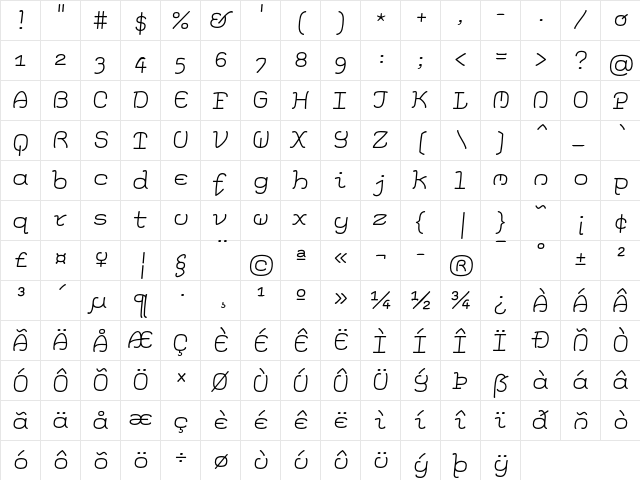
Elementis LT Std Light
Design Context for Elementis LT Std Typeface
Elementis LT Std is a composed and adaptable typeface that performs quietly and consistently across a wide range of design contexts. Its slender proportions lend an understated elegance to any composition.
Pro Tip: Use Elementis LT Std in both headline and body roles to test its range before committing to a single application.